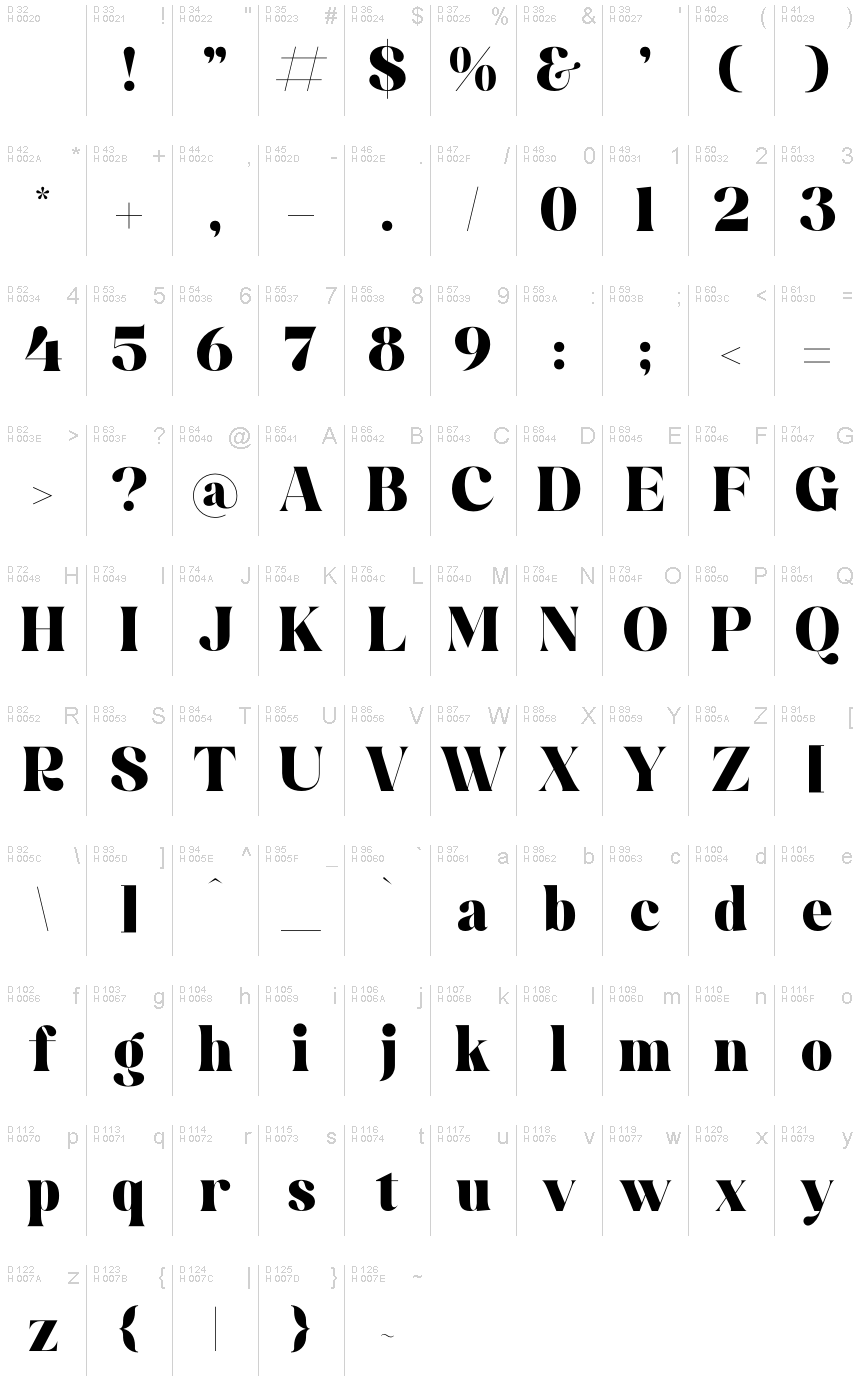
Bridga Goldeni
Bridga Goldeni font, crafted by Storytype Studio, embodies a striking blend of elegance and strength with its bold serif design. This font captures attention effortlessly, featuring pronounced lines and an inviting profile that exudes sophistication. Its balanced proportions add a contemporary touch while maintaining traditional charm, making it visually captivating.
Ideal for upscale branding, modern editorial layouts, or distinctive signage, Bridga Goldeni elevates any text it graces. Its commanding presence makes it perfect for headlines or moments that require emphasis and style. The unique character set also invites playful creativity in various contexts—whether used in fashion promotions or high-end events, this font ensures a lasting impression.